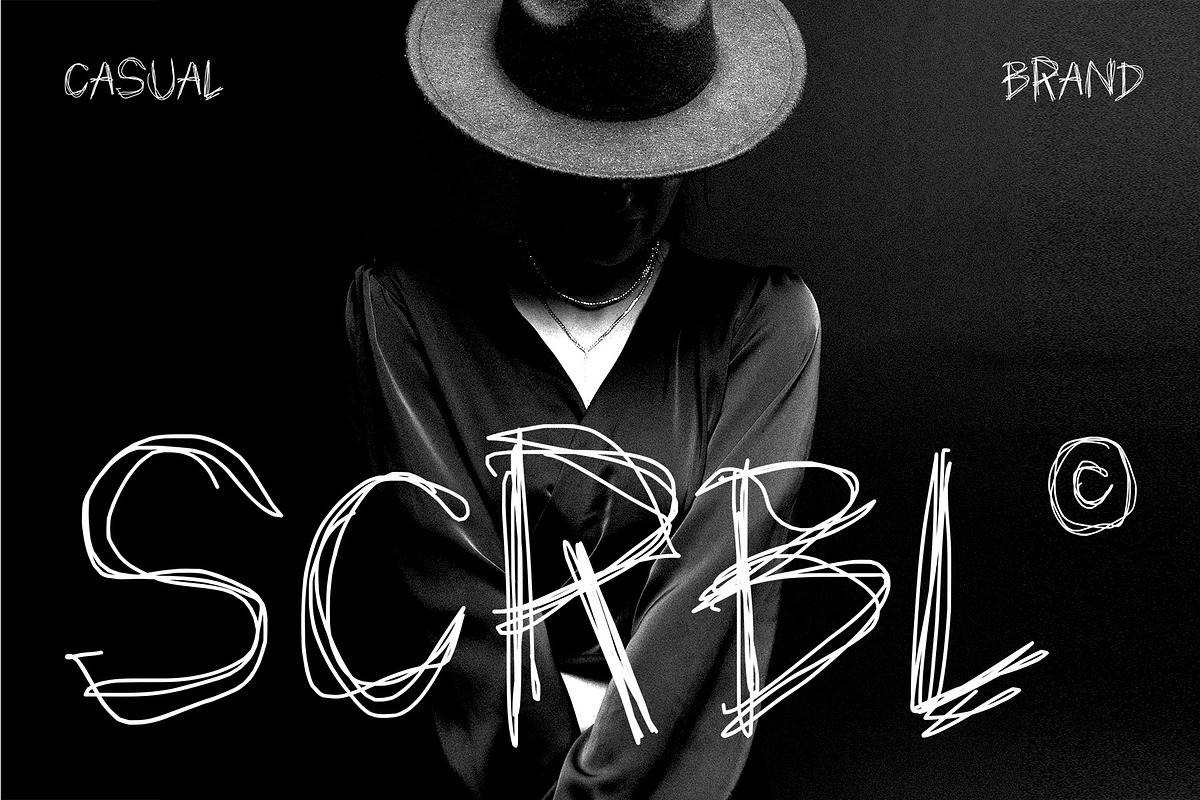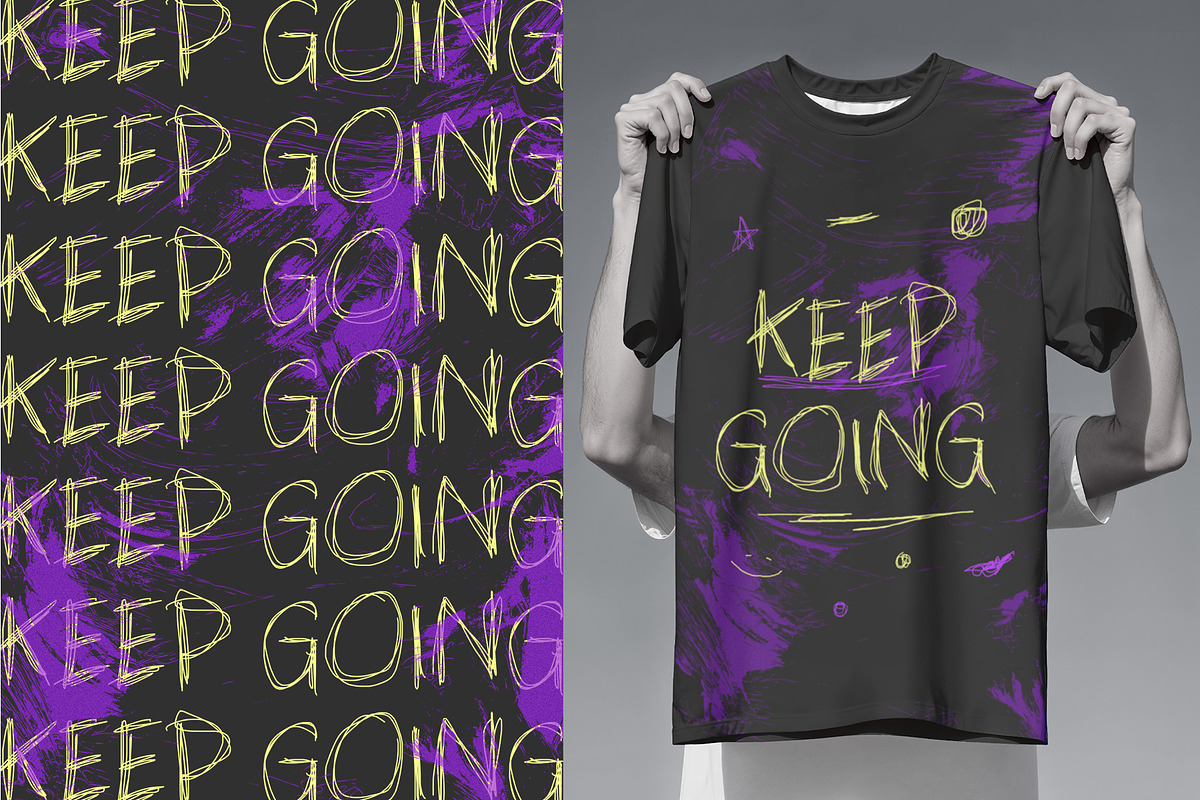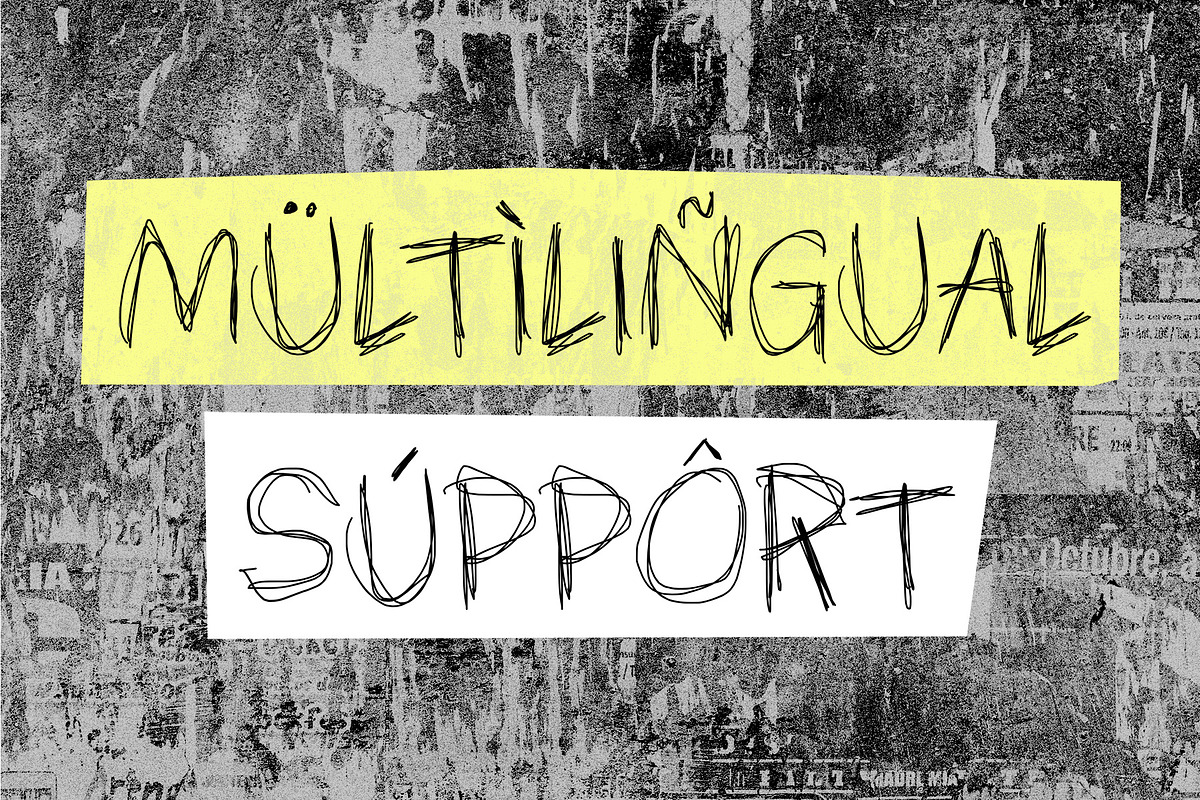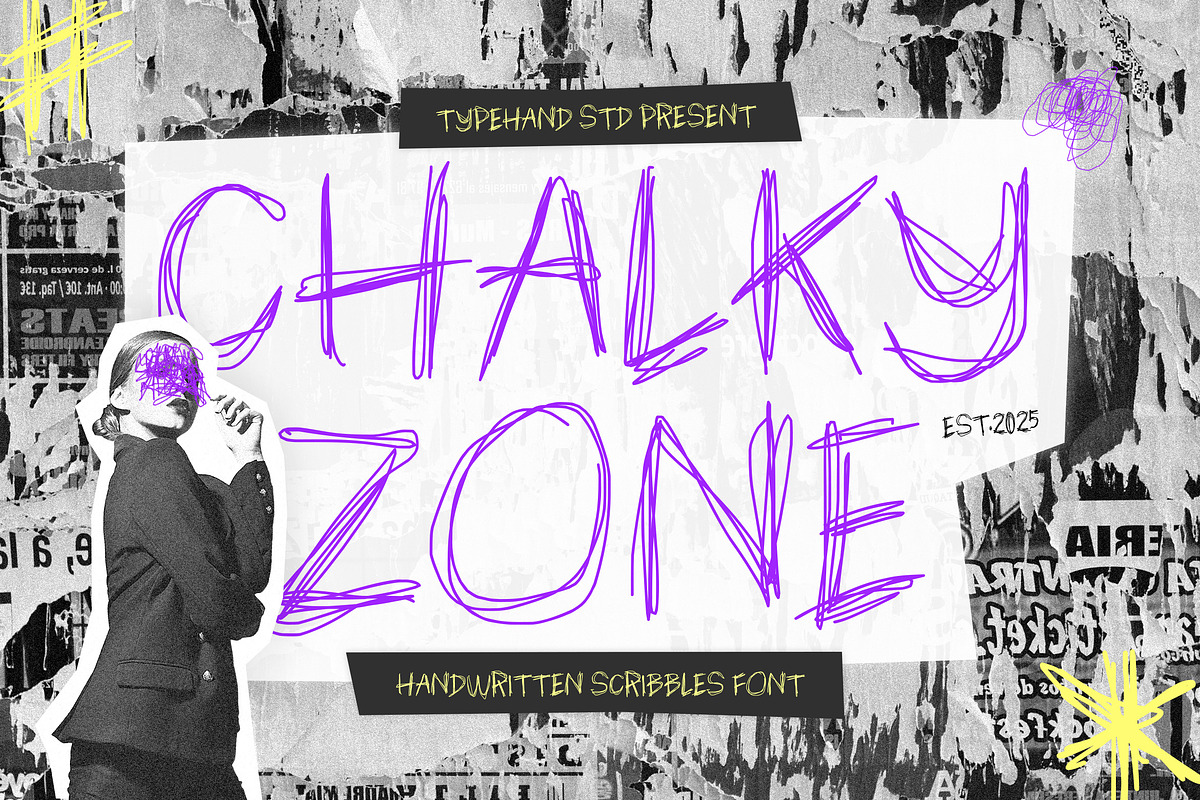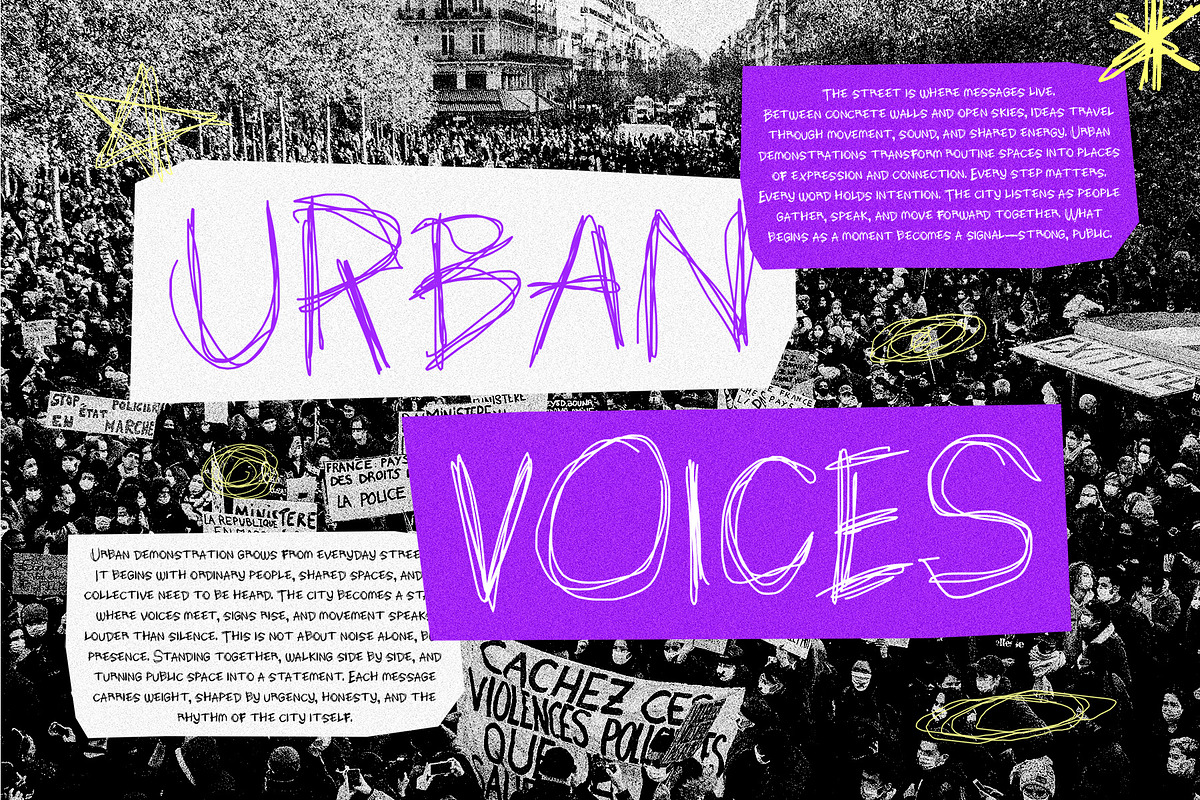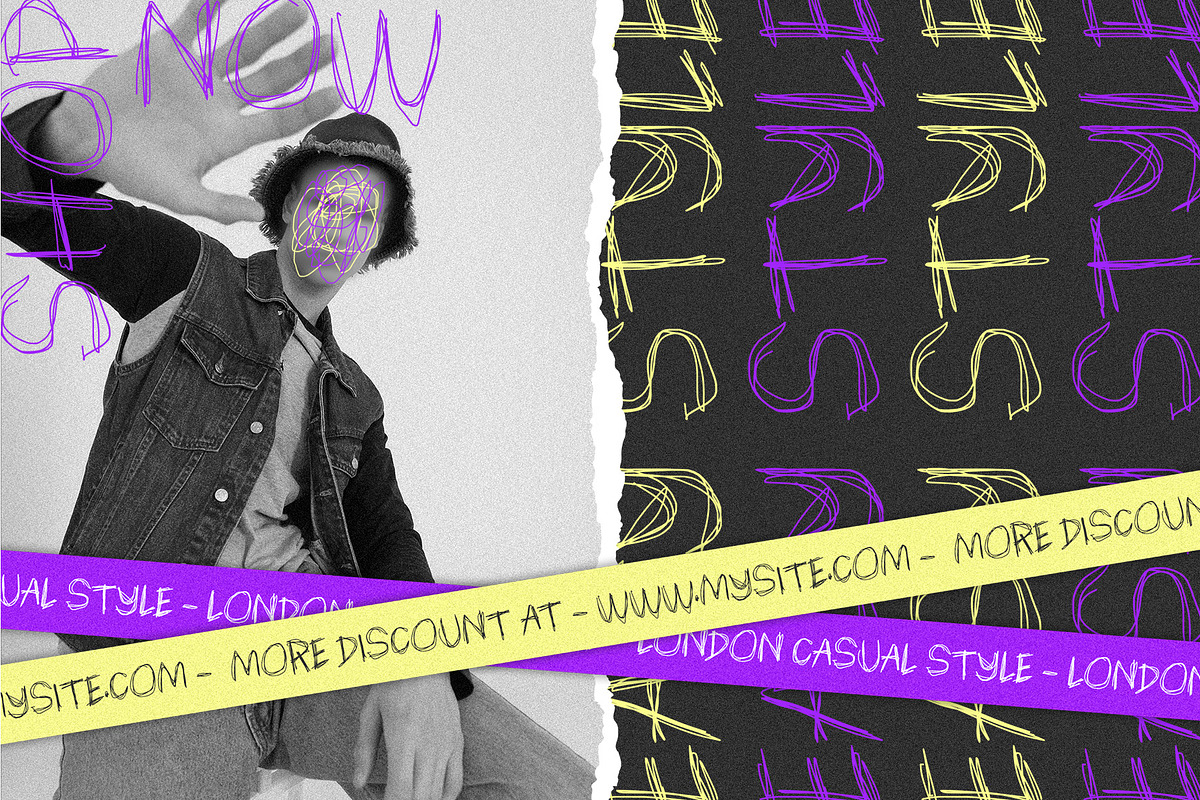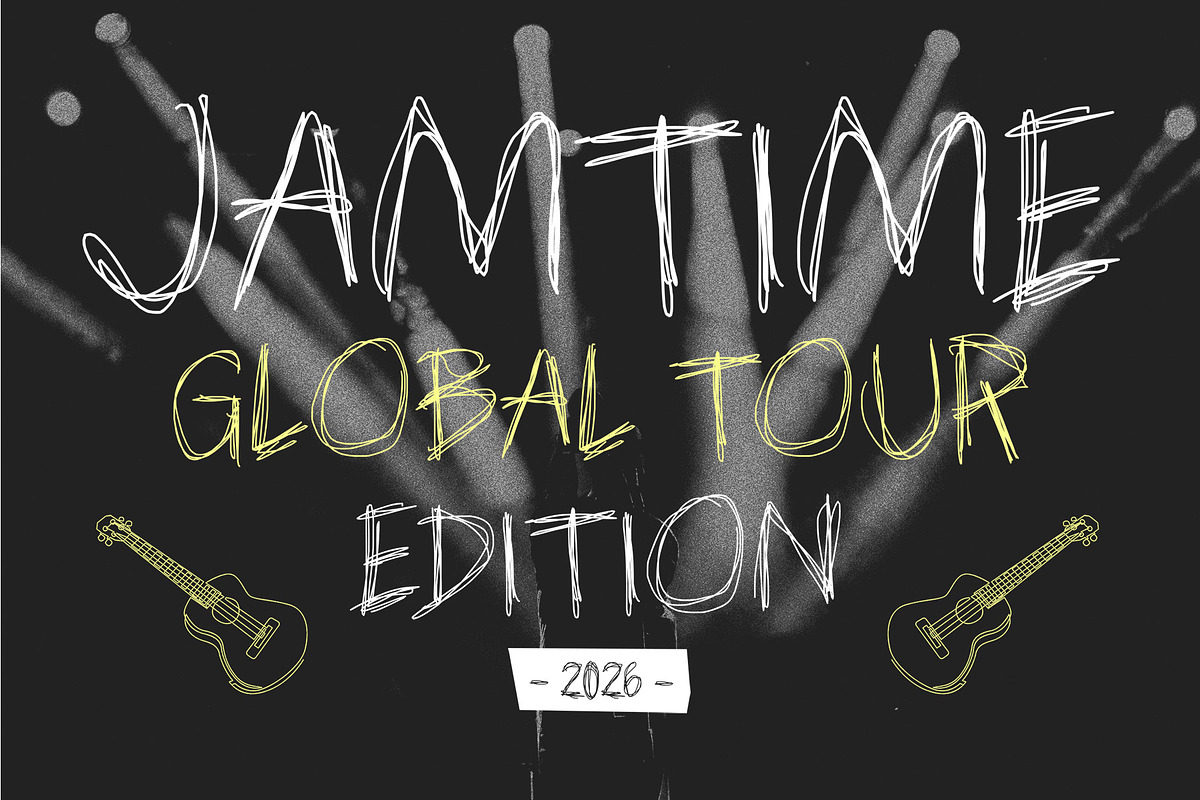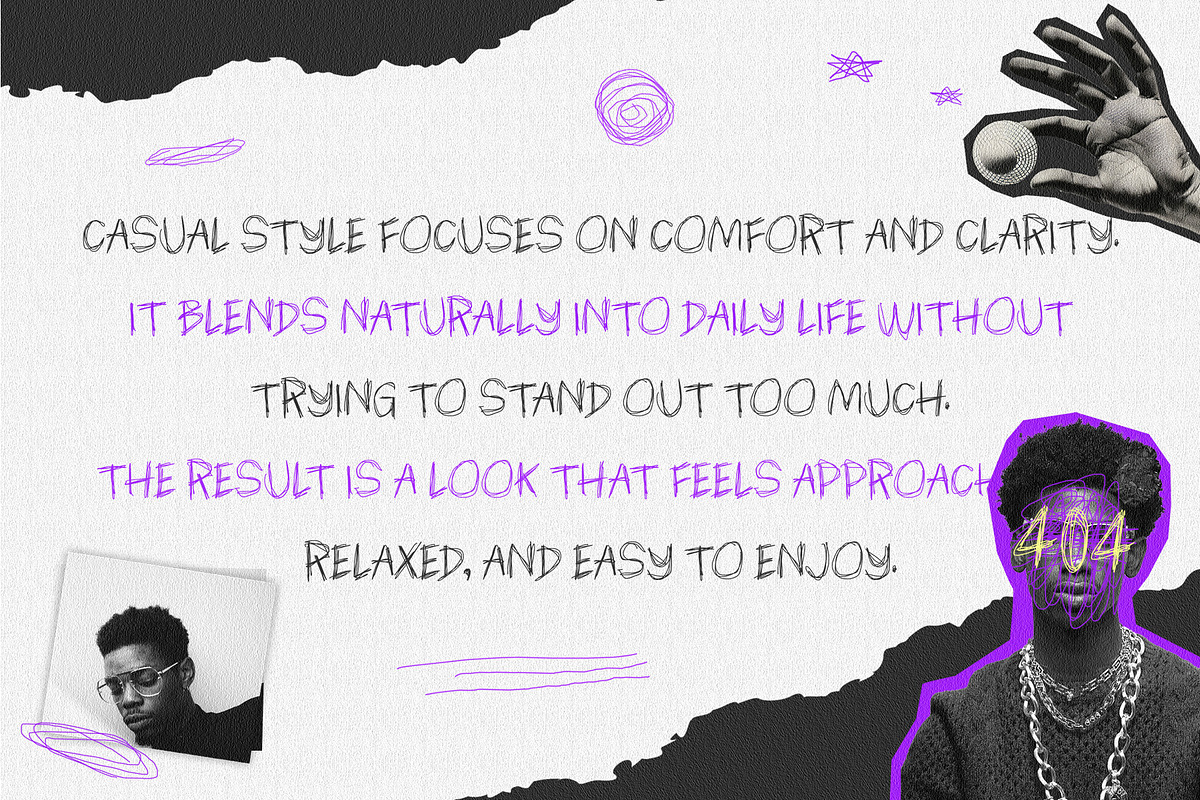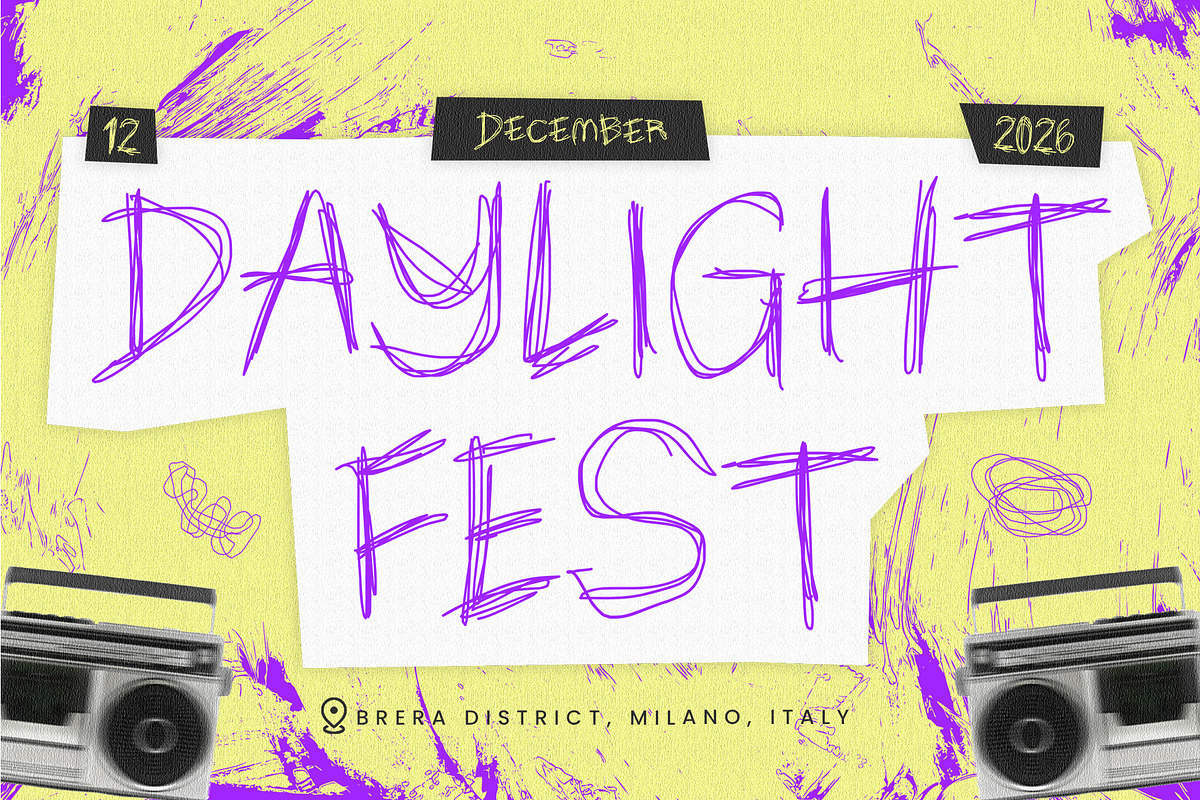
Chalky Zone Scribble Font
Chalky Zone is a raw handwritten scribble typeface designed to capture the energy of spontaneous sketching and urban creative expression. Built from layered pen strokes and loose hand-drawn lines, the letterforms feel energetic, imperfect, and intentionally chaotic.
Unlike traditional handwritten fonts that aim for smooth elegance, Chalky Zone embraces the rough beauty of quick sketchbook lettering. Each character appears as if it was rapidly drawn with multiple pen strokes, producing a gritty, expressive texture that instantly communicates movement and attitude.
This aesthetic makes the typeface particularly powerful for bold visual communication. Posters, album covers, streetwear graphics, and youth-oriented branding benefit from its rebellious personality. The scribbled structure creates strong visual impact, especially when used at large sizes where the layered strokes and hand-drawn imperfections become part of the design language.
Chalky Zone works exceptionally well for creative projects that need to feel authentic rather than polished. Music festivals, underground events, street culture campaigns, and independent fashion labels can use this typeface to convey energy and individuality. Its visual voice fits naturally within modern streetwear aesthetics and experimental editorial layouts.
Despite the intentionally rough construction, the letterforms remain recognizable and readable in headlines and short phrases. The large x-height and open shapes help maintain clarity even within the layered scribble strokes.
The typeface includes uppercase, lowercase, numerals, punctuation, and multilingual characters, making it suitable for international creative projects.
Chalky Zone is not designed for quiet typography—it is meant to stand out. Its expressive lines, imperfect strokes, and urban attitude make it a powerful choice for designers who want their typography to feel alive, raw, and visually loud.